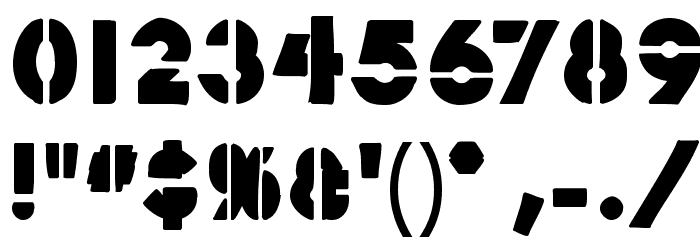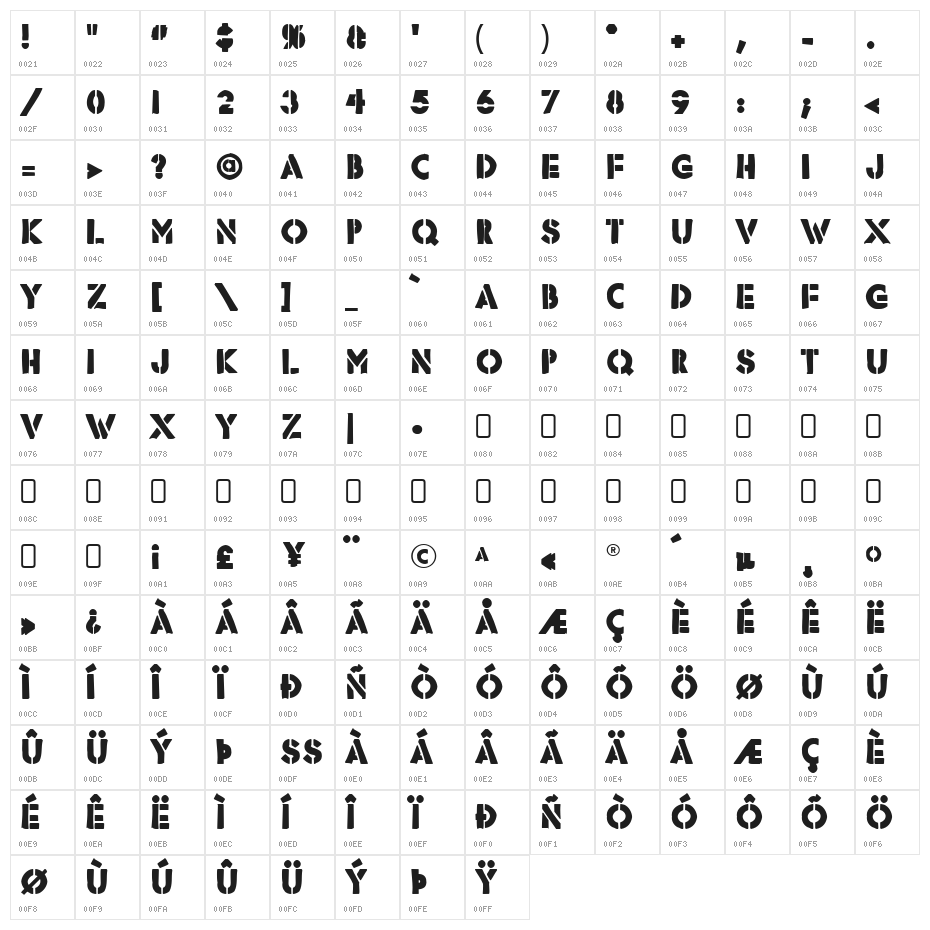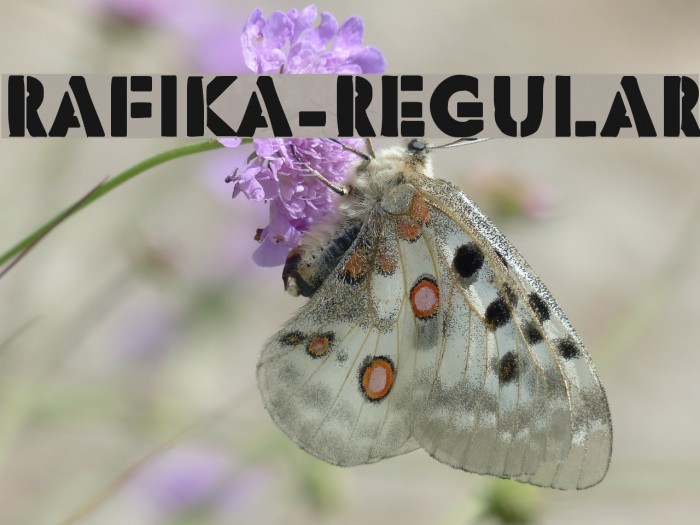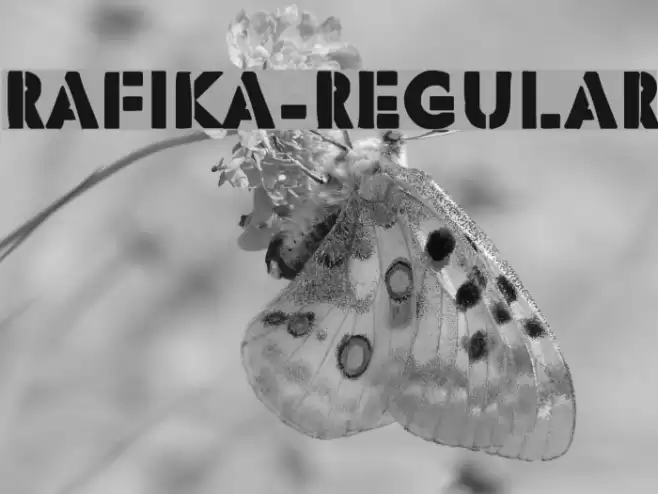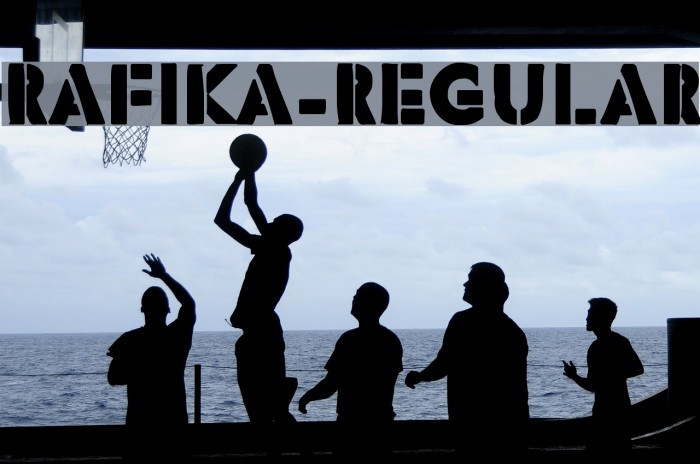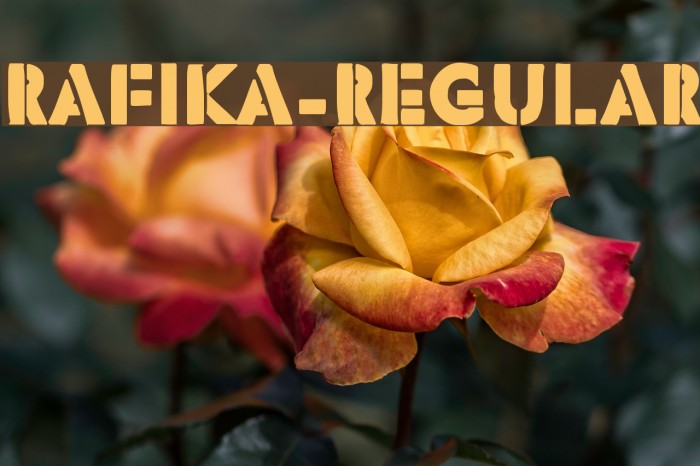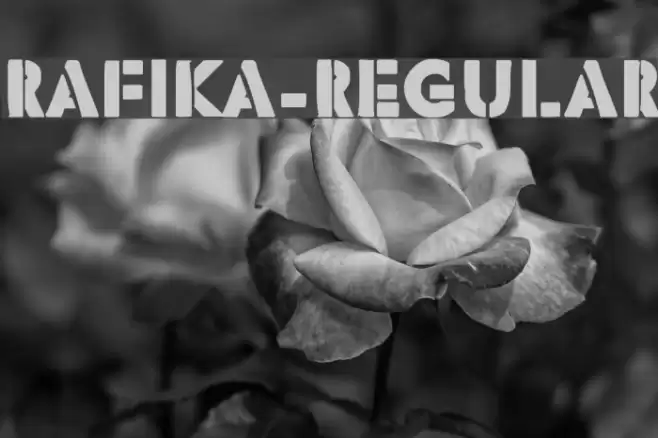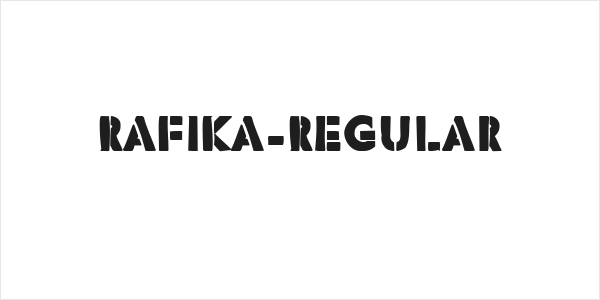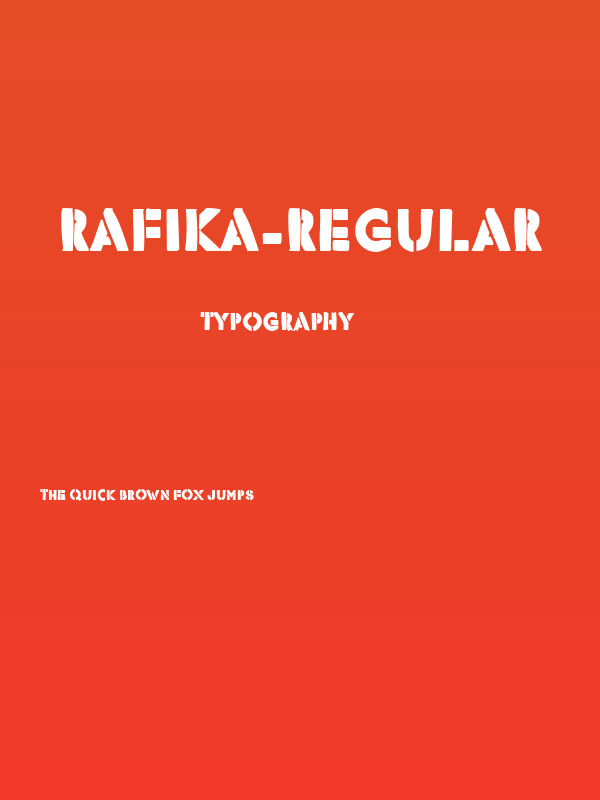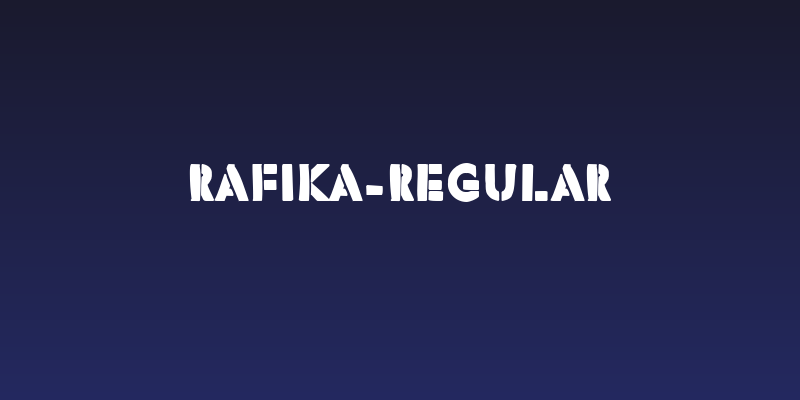
Rafika-Regular Font
Rafika-Regular Description
This font features a bold, stencil-like design that combines geometric shapes with a strong, impactful presence. The characters are constructed with solid, blocky forms, interrupted by intentional gaps that create a stencil effect. This design choice gives the font a modern, industrial feel, making it suitable for attention-grabbing headlines and signage. The uppercase and lowercase letters maintain a consistent style, with the numerals and special characters following the same aesthetic. The overall appearance is both robust and stylish, perfect for projects that require a bold statement.
| Proposed Projects | Ideal for posters, signage, branding, and any project needing a bold, modern look. |